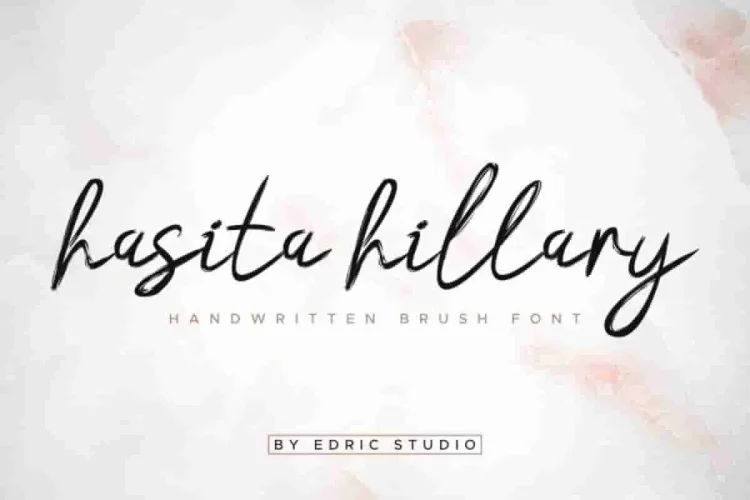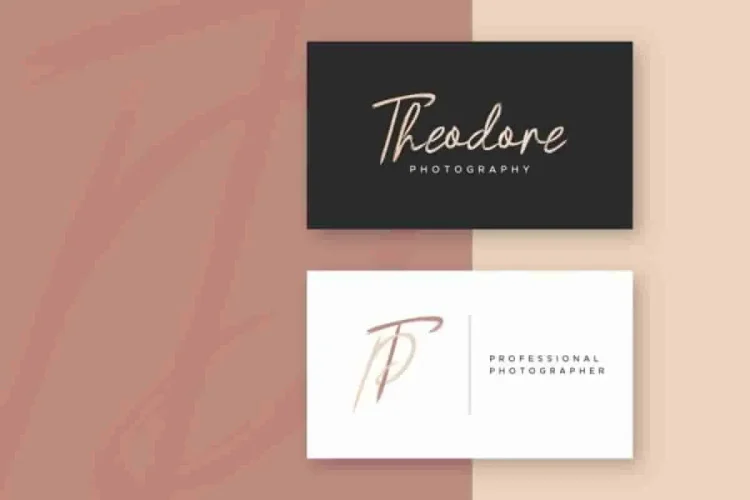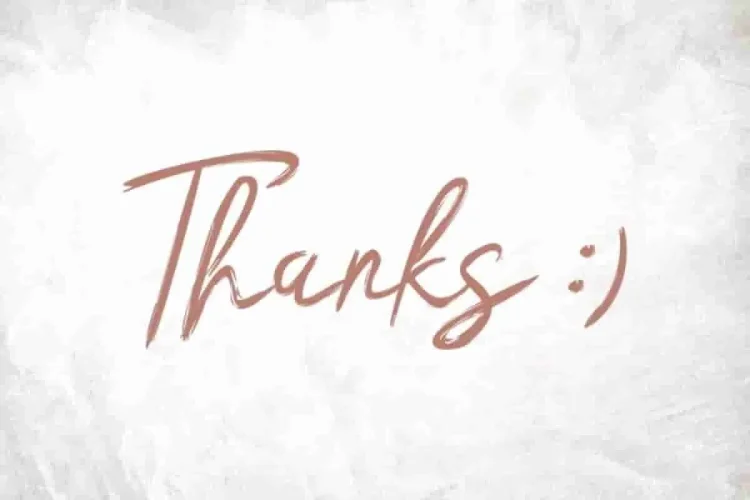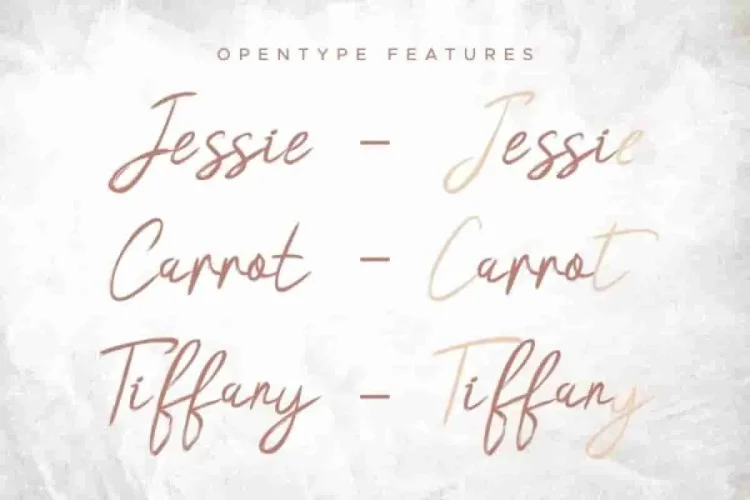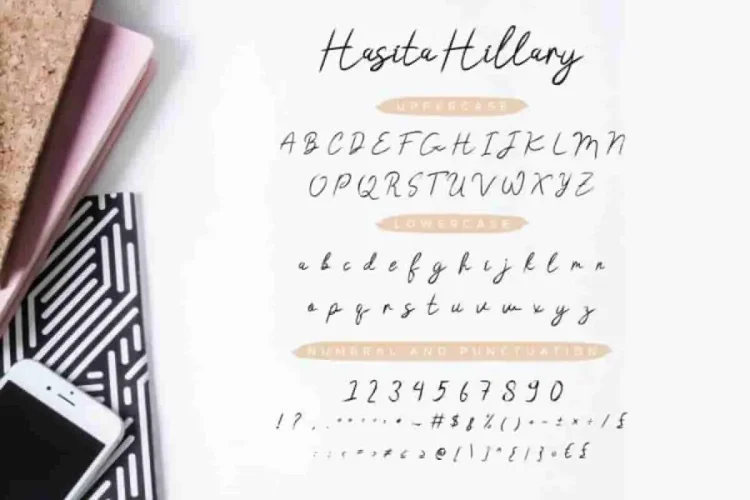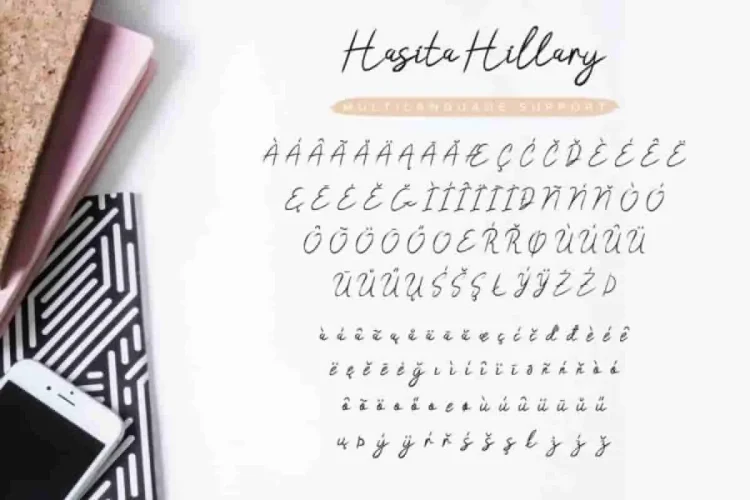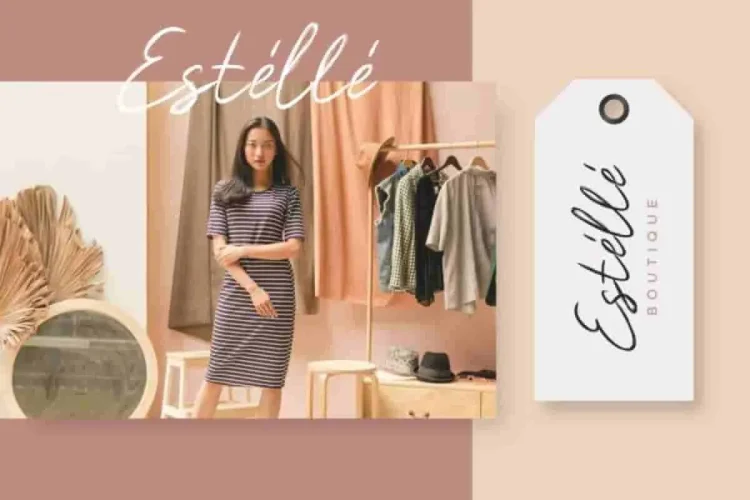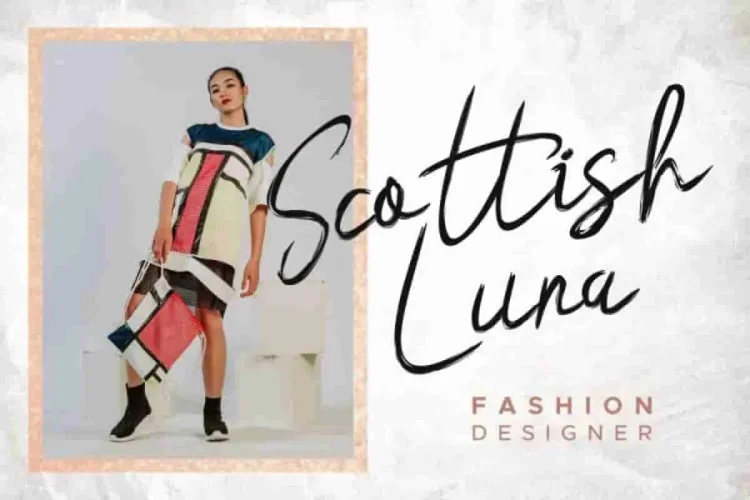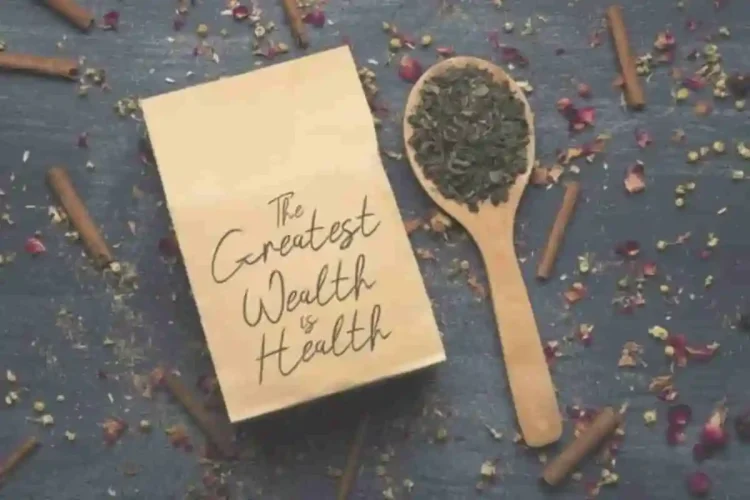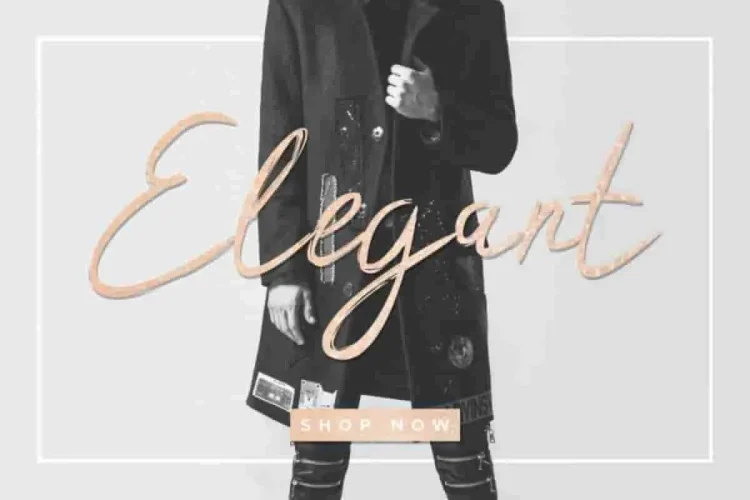
Hasita Hillary Brush Font
It is us again : EDRIC Studio, Please welcome! The newest font Hasita Hillary Brush Font
Specifically this typeface, handcrafted from our Studio, Situated here in Bandung, Indonesia. This is our newest font from our lovely font designer Fahri. Made with love and passion. :)
Hasita Hillary Brush Font is a brush calligraphy typeface with unique and sophisticated style. Moreover, this font has a stunning characters set, perfectly managed with well spaced and kerning. As a result, the style character of this font is elegant, stylish, sophisticated and classic brush calligraphic style.
Therefore, you won’t find a font like Hasita Hillary Brush Font anywhere else.
Hasita Hillary Brush Font works beautifully for projects like logotype (with an extended license), branding, stationery, business card, signage, flyer, brochure etc. Almost all industries will be match for this typeface: wedding, events, real estate, architect, law firm, florist, gardening, makeup artist, travel, hotel, musician etc